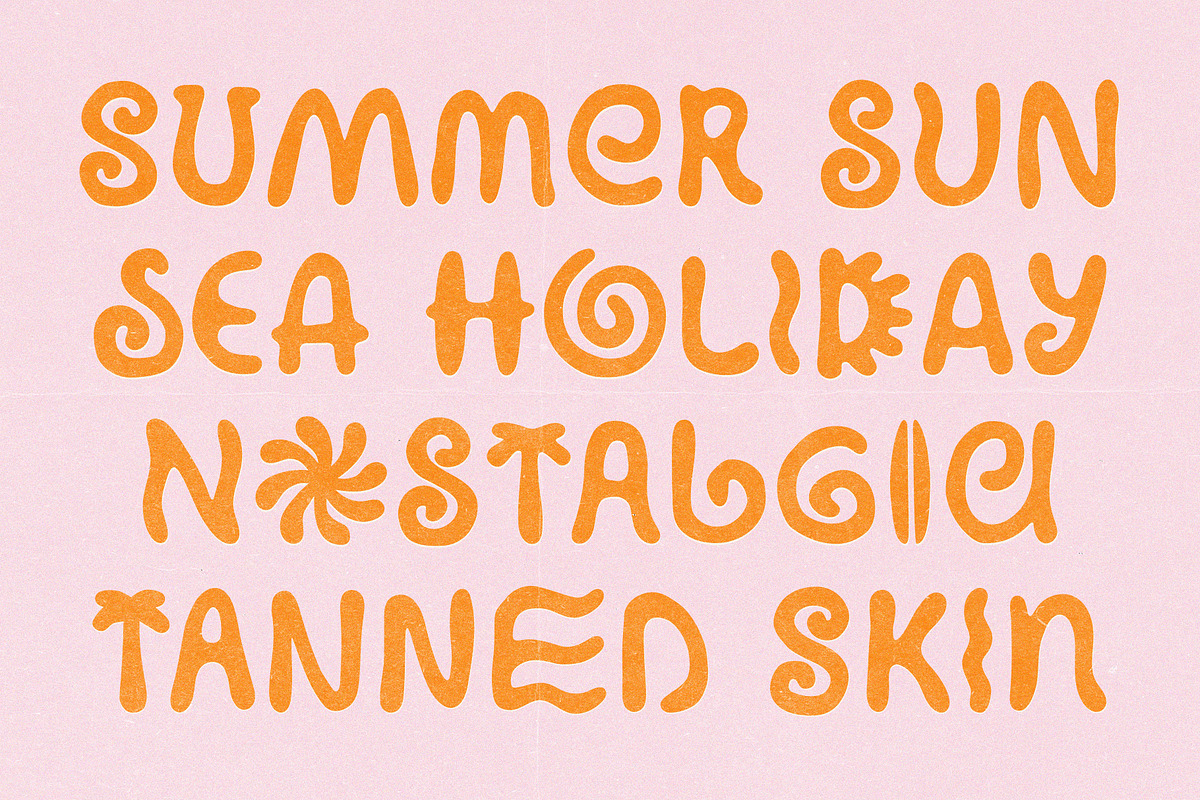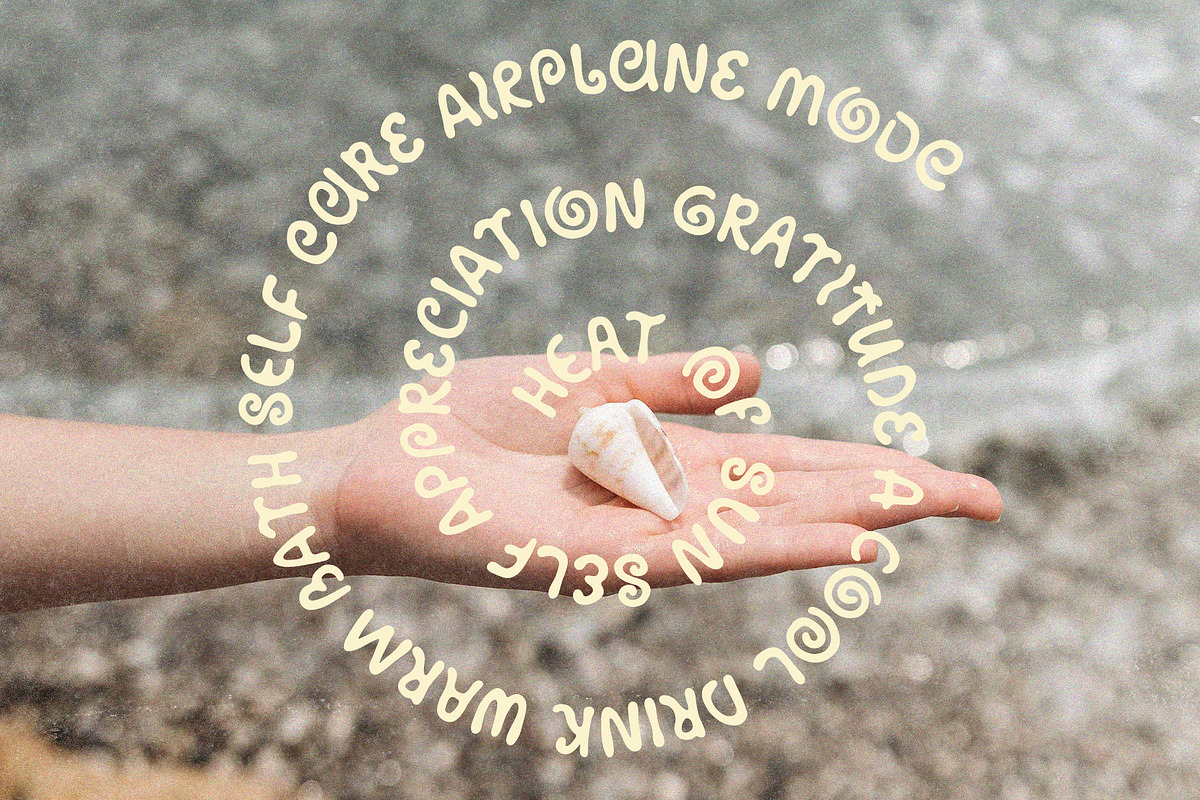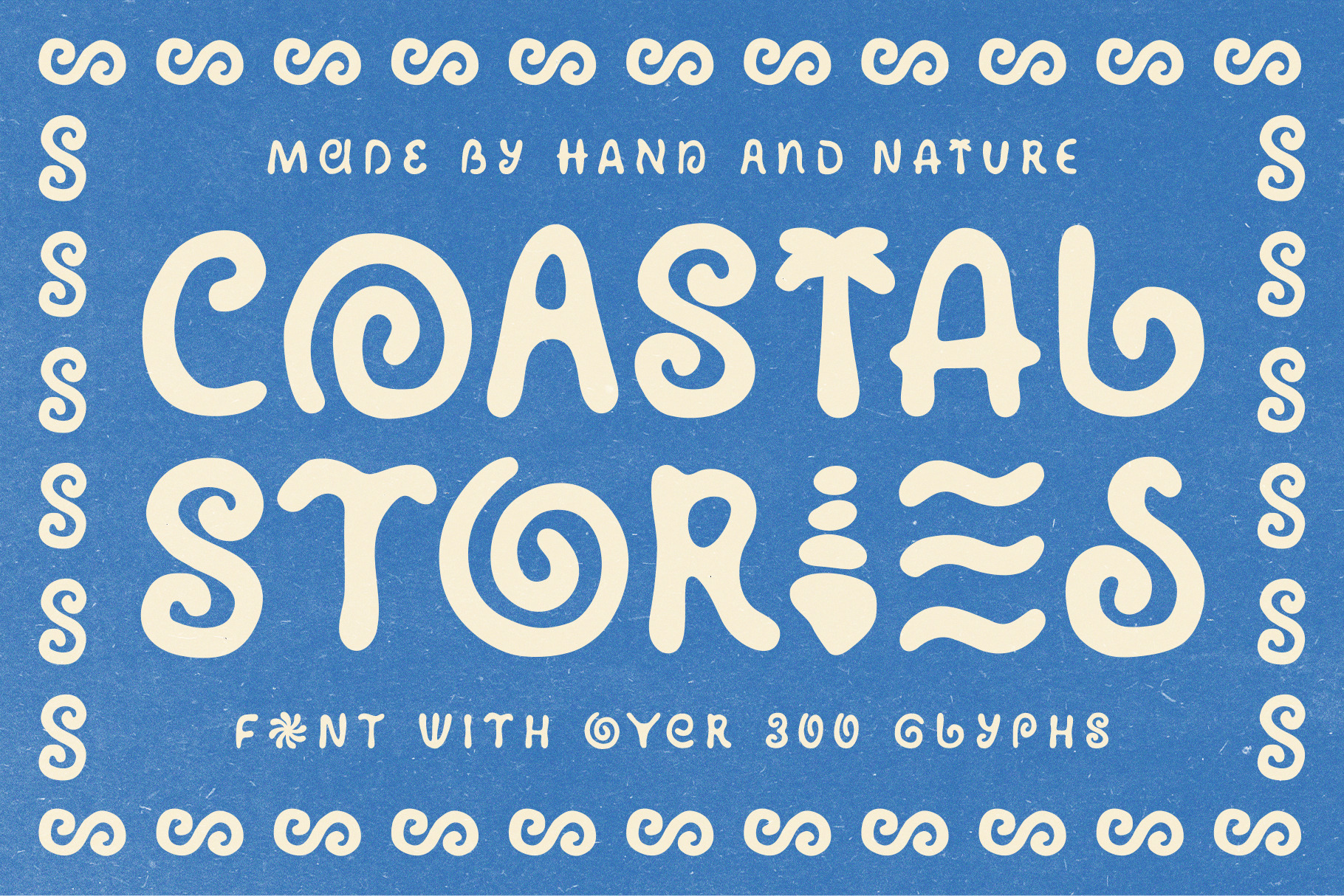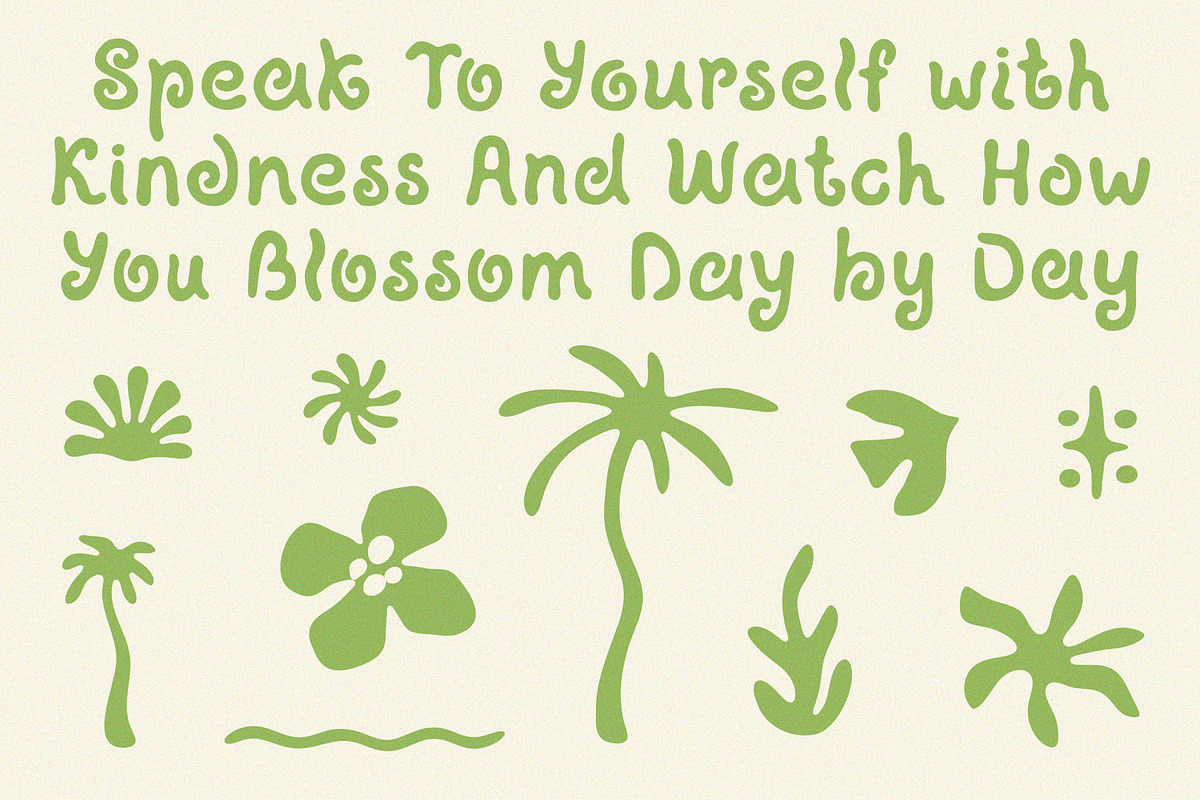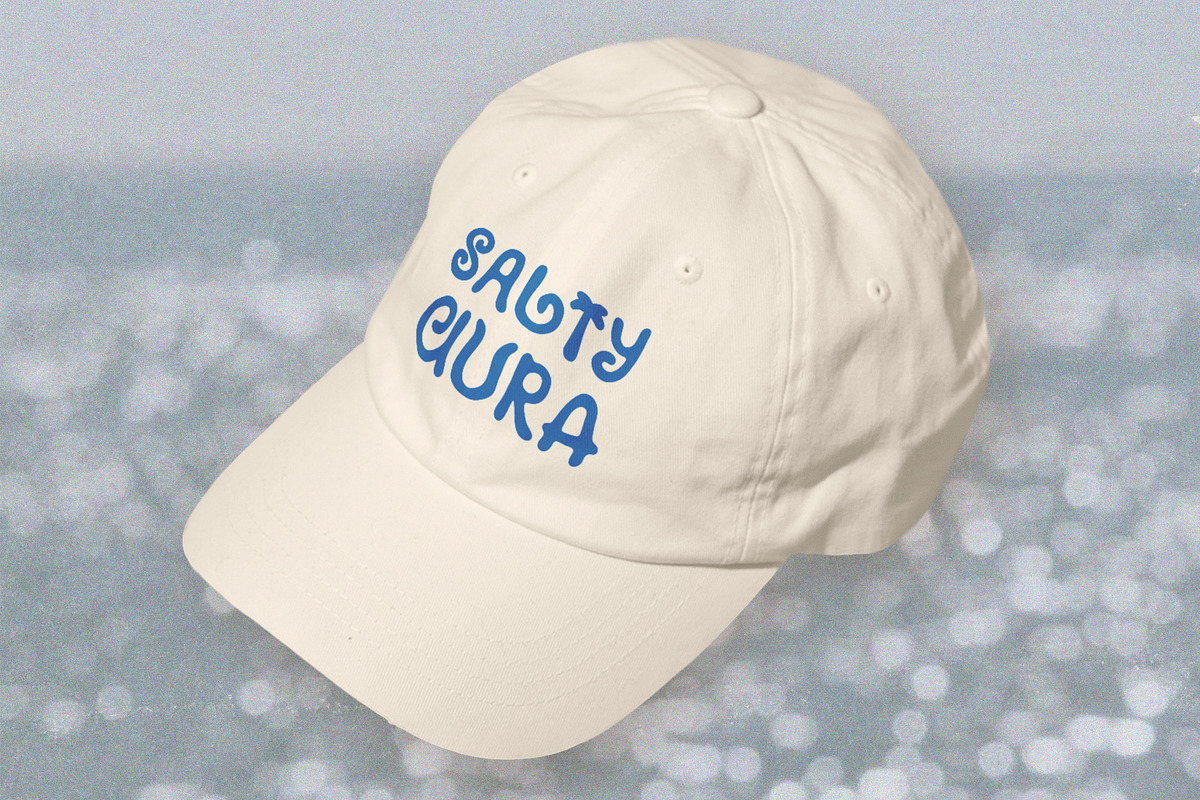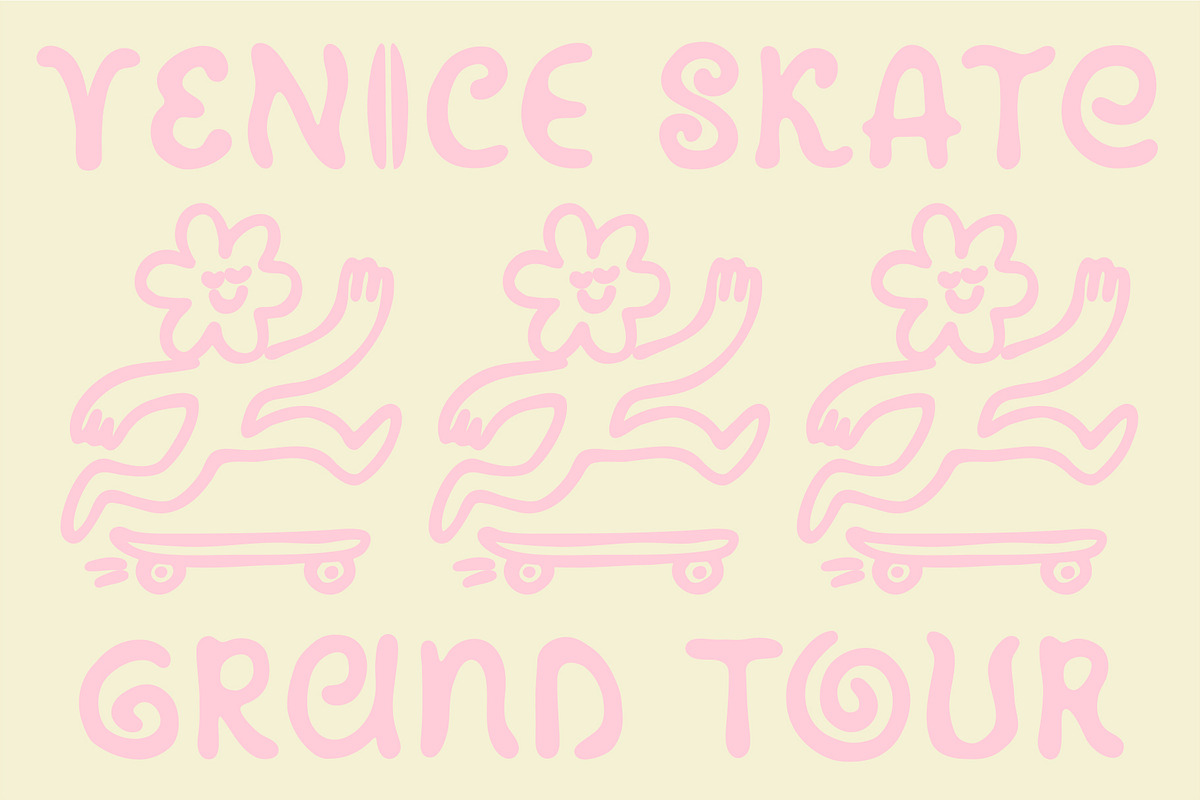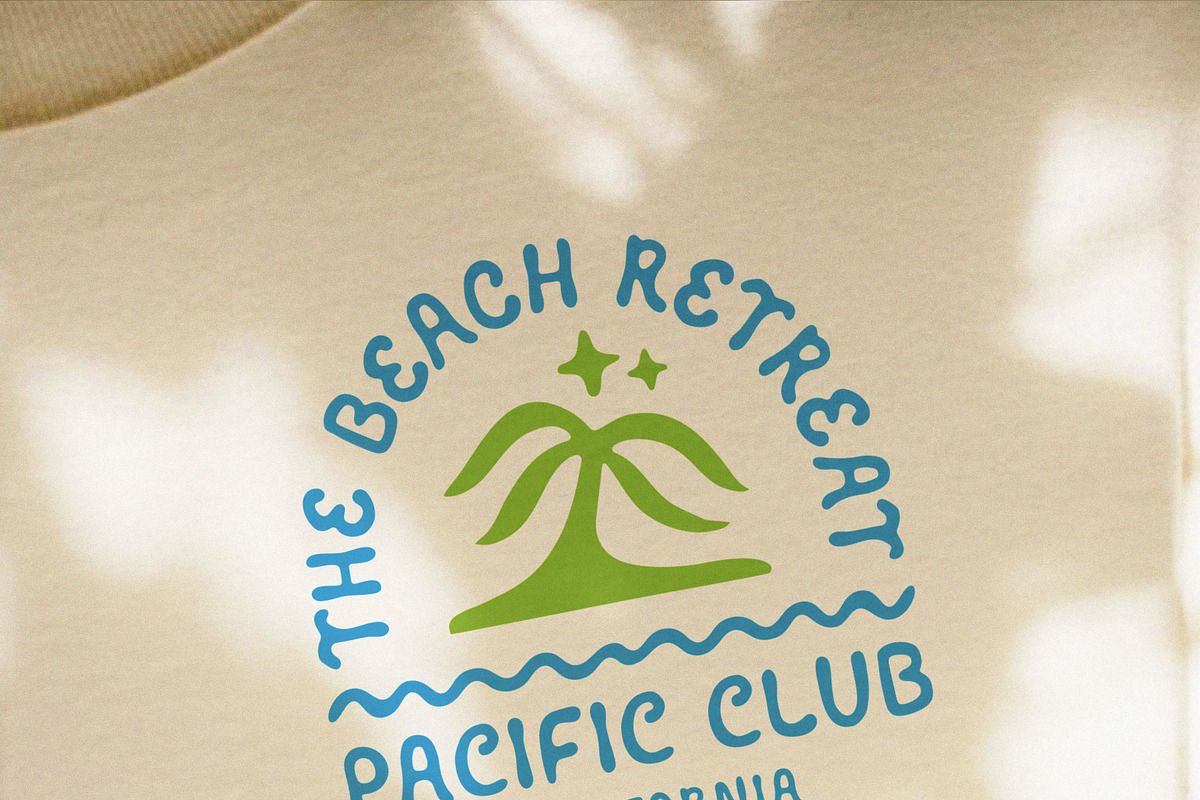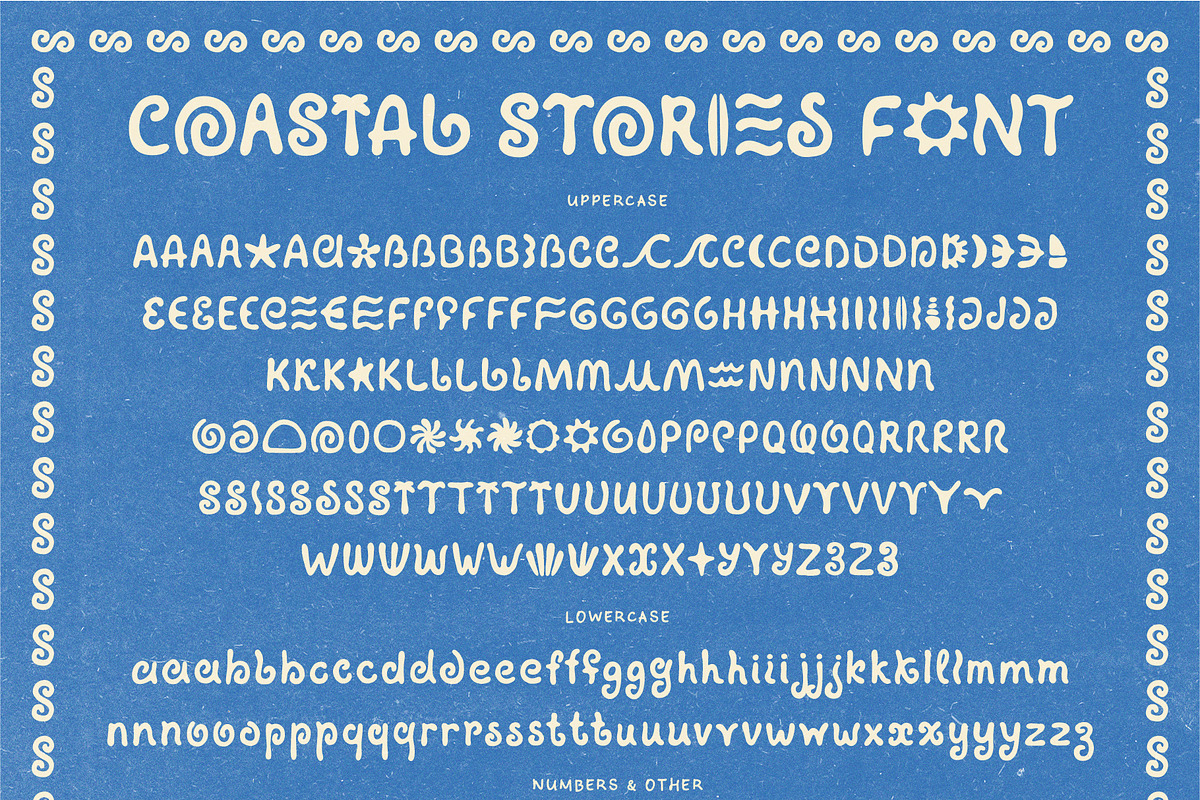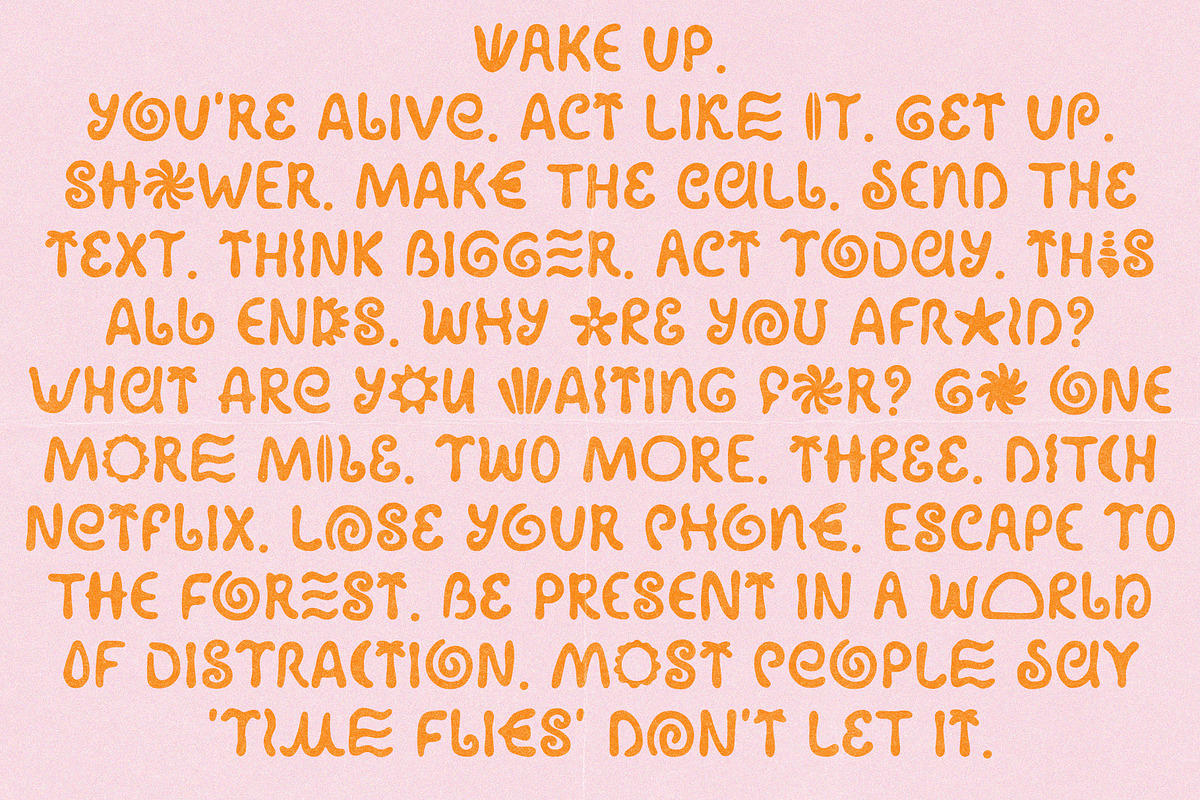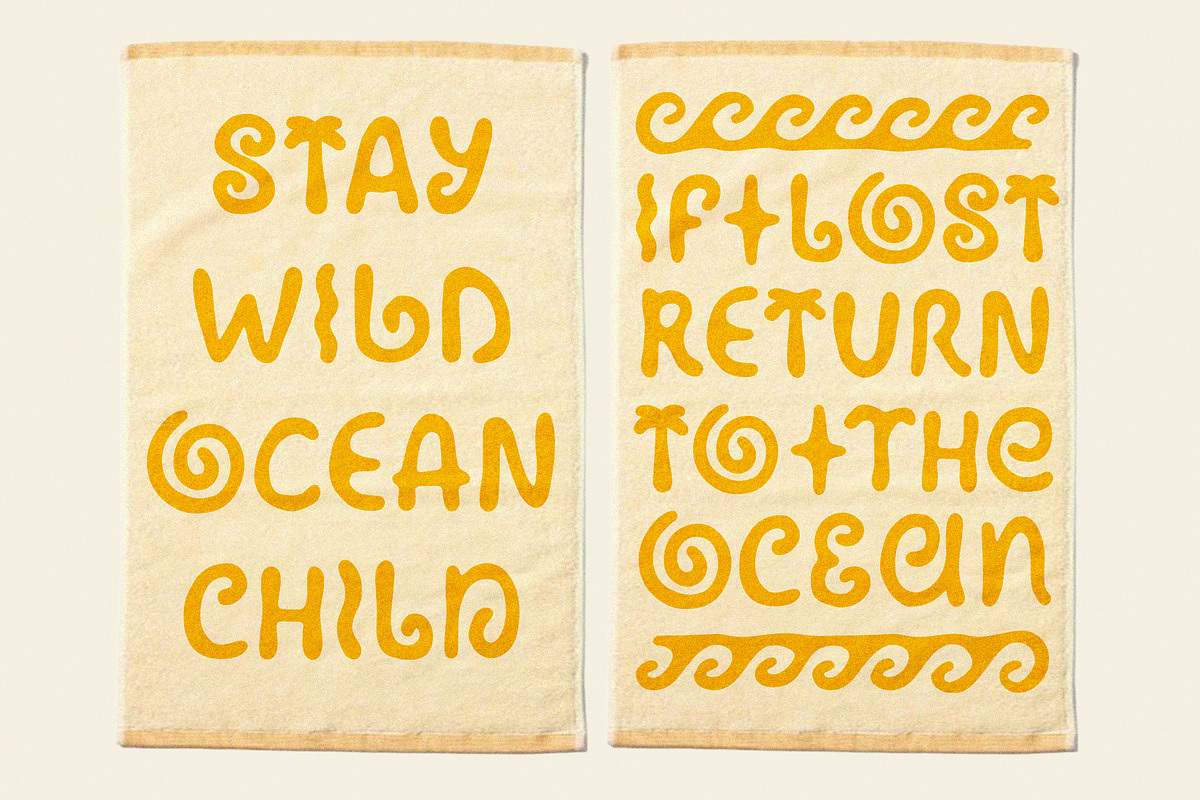
Retro Coastal Symbol Hand-drawn Font
Coastal Stories is a handwritten font we worked on for a long time before releasing. It’s not rushed — every curve and alternate grew naturally, and that’s why it comes with over 300 glyphs to play with. 🌀
The name feels sunny and coastal, but this font isn’t only about summer. It carries a retro soul that works beautifully in modern branding. Picture it on merch — bold t-shirts, beach caps, surfboards, tote bags. Imagine it shaping the look of a wellness brand, on packaging for skincare, yoga studios, juice bars, or even café menus. It’s the kind of type you’ll also see on event posters, vinyl covers, bold magazine spreads, festival graphics, coffee cups, or social media intros.
It’s a font made to stand out in everyday design: website headers, YouTube thumbnails, TikTok visuals, or content creator logos. Wherever words need personality, Coastal Stories makes them look alive, a little playful, and always memorable.
And the best part? It’s genuinely fun to work with — the letters carry a relaxed energy, and that’s what gives them their charm.